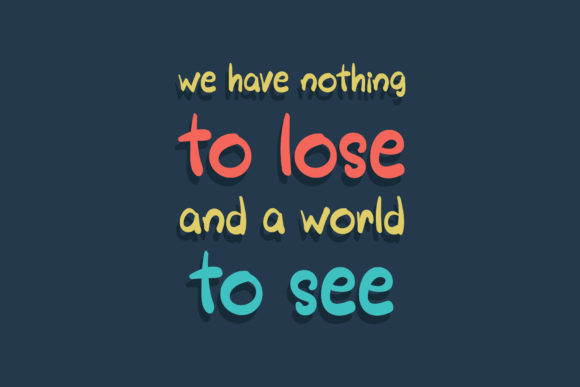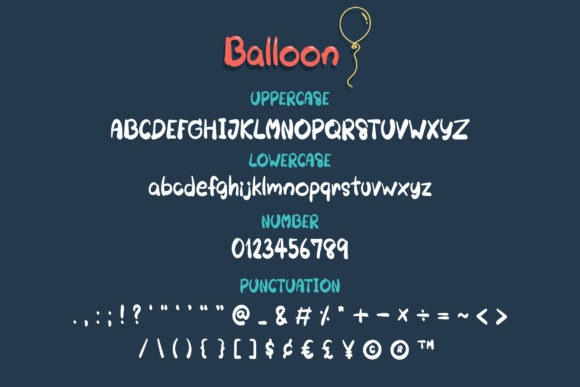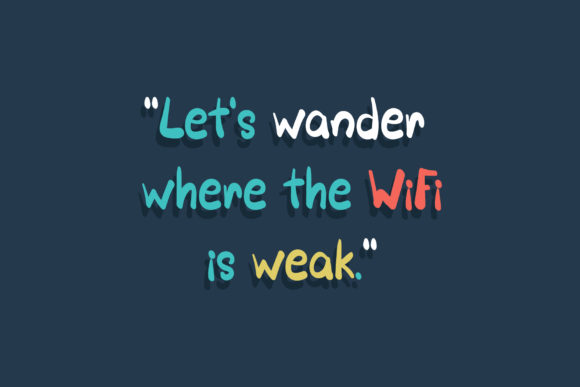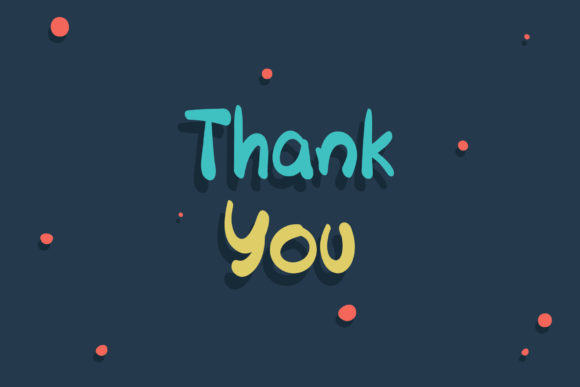
Balloon Font
About Balloon Font
Balloon is a playful and sweet handwritten font. Embodying quirkiness and authenticity, this beautiful font will brighten up any kids and school project!